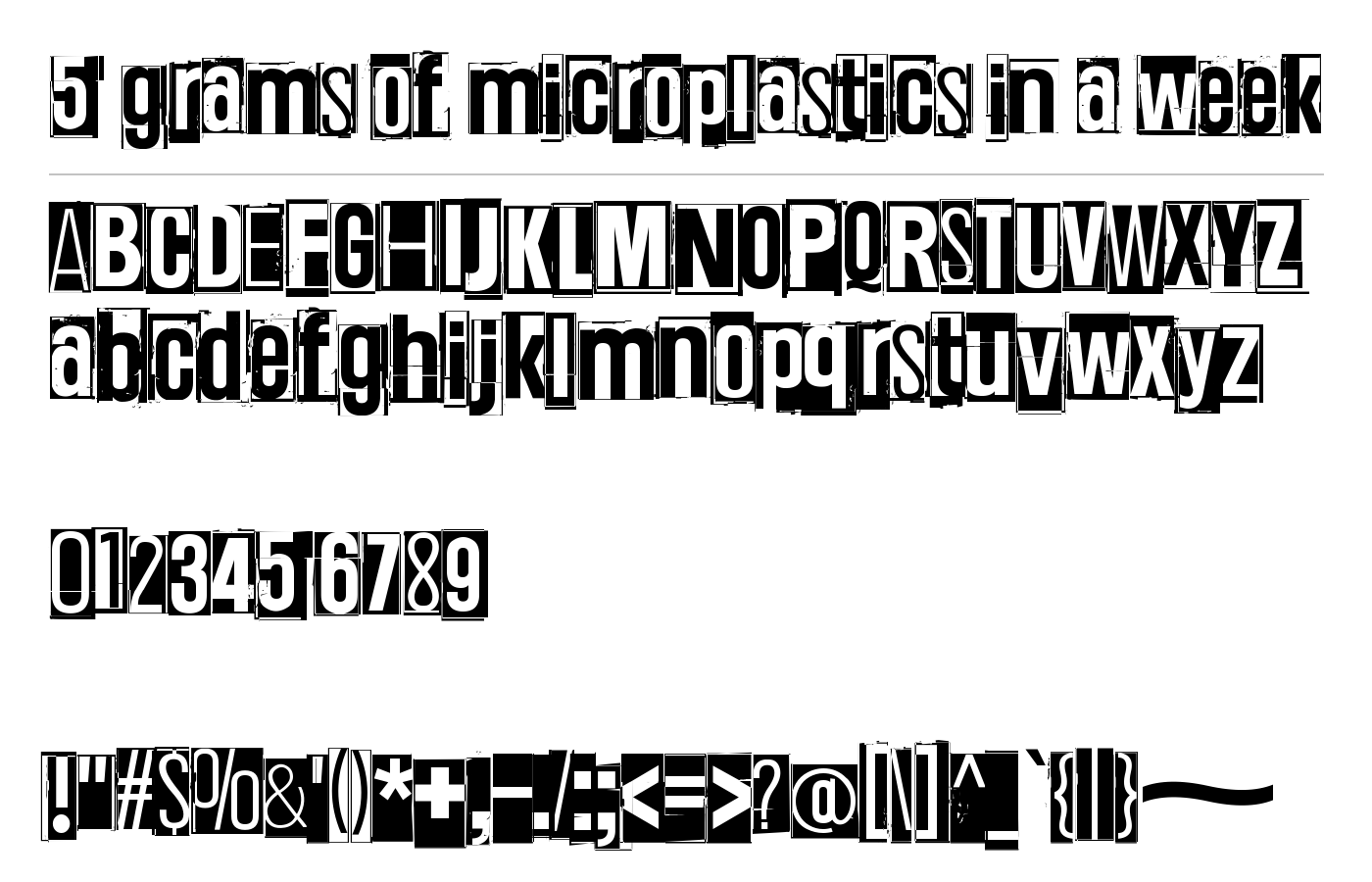
"5 grams of microplastics in a week" is a bold, condensed sans serif font with a distressed, grungy texture that gives it a raw and edgy personality. Its tall, narrow letterforms and high contrast between thick and thin strokes make it ideal for striking headlines, posters, or branding that aims to capture attention with a rebellious, urban vibe. This font works well where a strong statement or impactful mood is desired, especially in creative or alternative design projects.
5 grams of microplastics in a week Font
About 5 grams of microplastics in a week Font
| Font family | 5 grams of microplastics in a week Font |